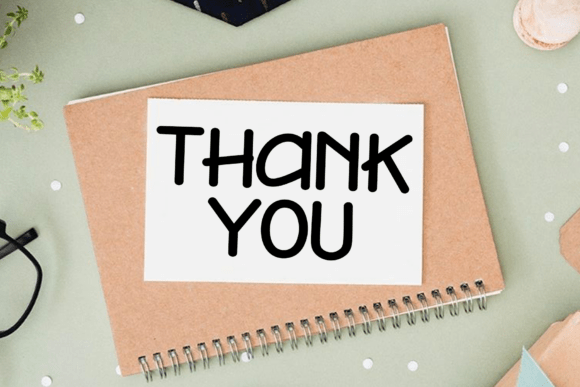
Introduction to Grateful Memories Font
Enter Grateful Memories Font, a stunning display font that embodies the perfect blend of simplicity and approachability. With its clean lines, balanced letterforms, and subtle rounded edges, this font is a must-have for any designer looking to add a warm and inviting touch to their work. And the best part? It’s available for free download, complete with a transparent background, making it a versatile design tool for any creative project.
Whether you’re a seasoned pro or just starting out, Grateful Memories Font is an invaluable addition to your design arsenal – and we can’t wait to dive in and explore its many charms.
Key Features of Grateful Memories Font
- Unique, hand-drawn design perfect for creative projects requiring a high-quality, personal touch.
- Comprehensive character set, including uppercase and lowercase letters, numbers, and punctuation marks, for versatile use.
- Perfect for scrapbooking, card making, and other paper crafting projects where a sentimental, handwritten feel is desired.
Honest Review: Grateful Memories Font
I recently came across the Grateful Memories Font, and I must say it’s a beautiful addition to any design project. As a designer, I’m always on the lookout for high-quality fonts that can elevate my work, and this one does just that.
- ✨ The font has a unique and creative design that’s perfect for projects that require a touch of elegance and sophistication.
- ⚠️ The font is a bit limited in terms of styles, with only a few weights and variations available.
- ⚠️ Some characters may not be perfectly legible, especially at smaller font sizes.
Overall, I’m impressed with the Grateful Memories Font, and I would definitely recommend it to designers looking for a high-quality, creative design resource. While it may have some limitations, it’s a great addition to any font library, and it’s free, which is always a bonus!
The Grateful Memories Font is ideal for a variety of creative projects, including wedding invitations, baby shower decorations, or graduation announcements. The font is also perfect for creating social media graphics, presentations, or posters with a personal touch.